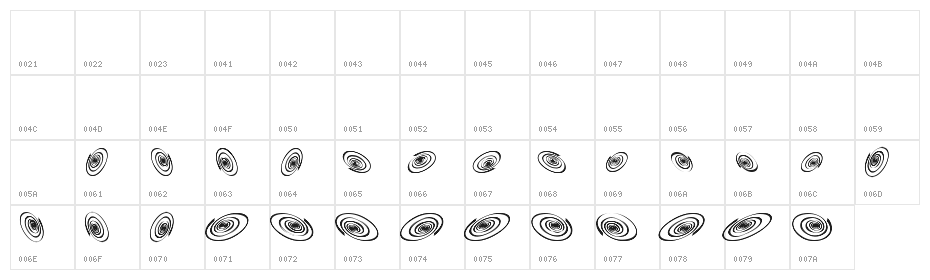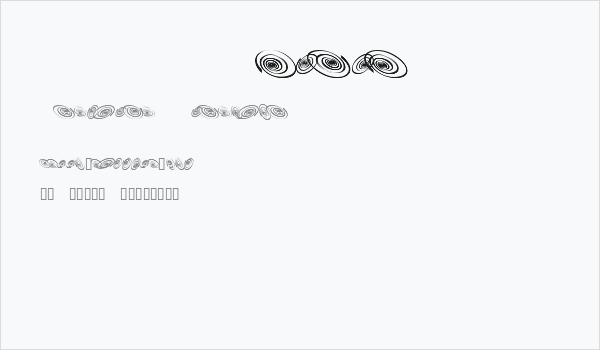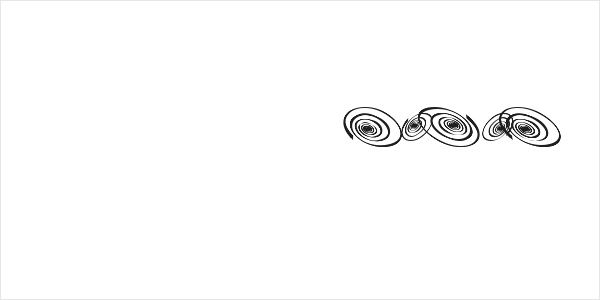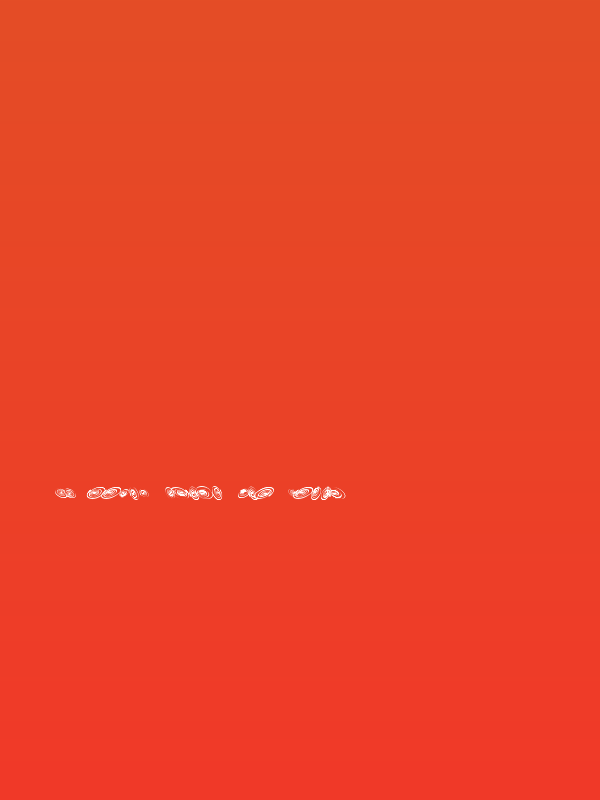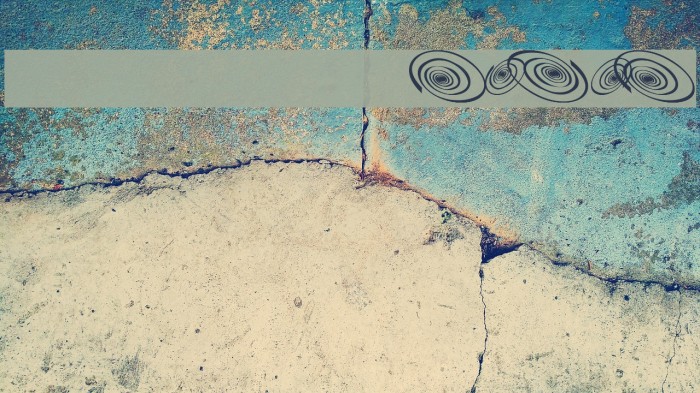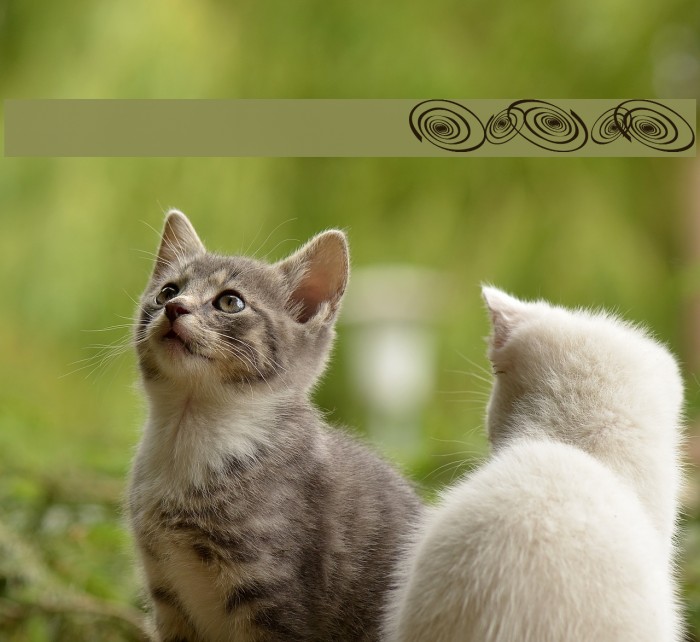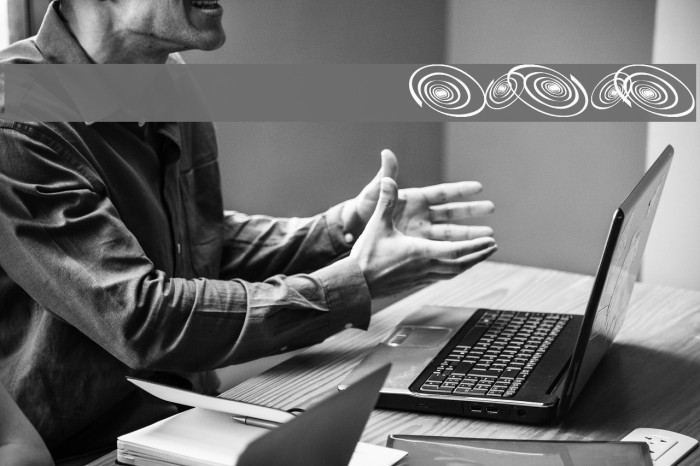
OMEGASwirls Font
OMEGASwirls Description
This design features a series of swirling, concentric oval shapes that create a dynamic and visually engaging pattern. The swirls are arranged in a continuous, flowing manner, giving the impression of movement and energy. The design is bold and striking, with a high contrast between the black outlines and the white background, making it stand out prominently. The overall effect is both modern and artistic, suitable for creative and decorative applications.
| Overall Style | Modern, Artistic |
| Use Case | Decorative elements, Artistic designs |
| Proposed Projects | Ideal for decorative borders, artistic projects, or as a unique pattern in graphic design. |